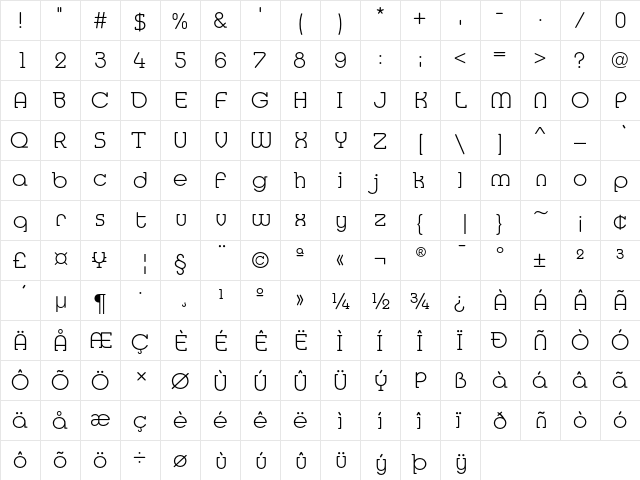
MediaSerifEF ExtraLight
Design Context for MediaSerifEF Typeface
MediaSerifEF carries the refined structure of traditional serif typography, with bracketed terminals and considered proportions that communicate credibility and craft. The delicate stroke weight brings airiness and refinement to layouts.
Pro Tip: Set MediaSerifEF at slightly larger body copy sizes than you would a regular-weight serif to compensate for its delicate stroke contrast.